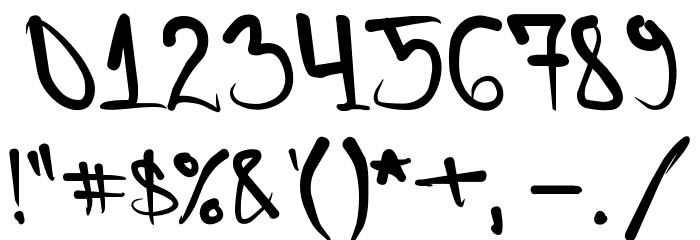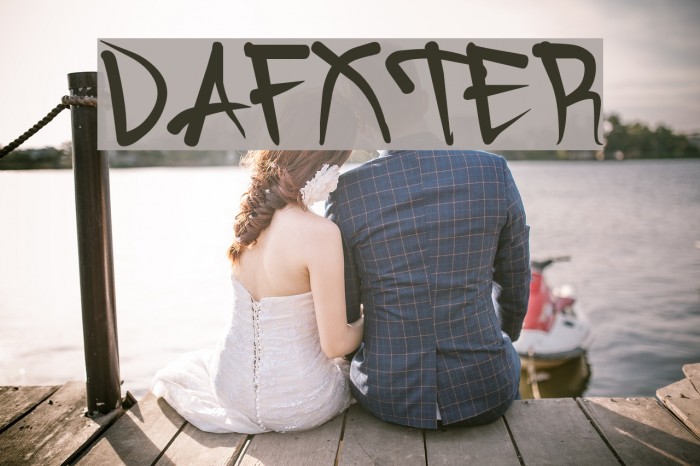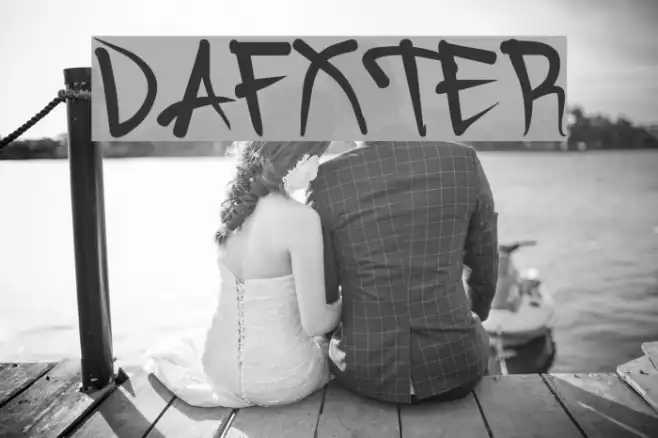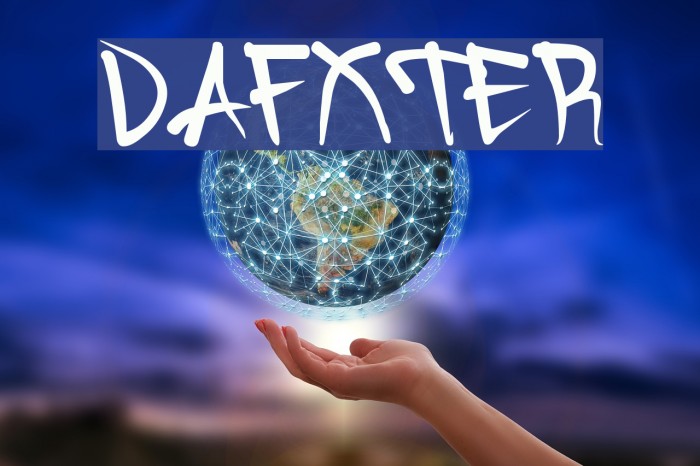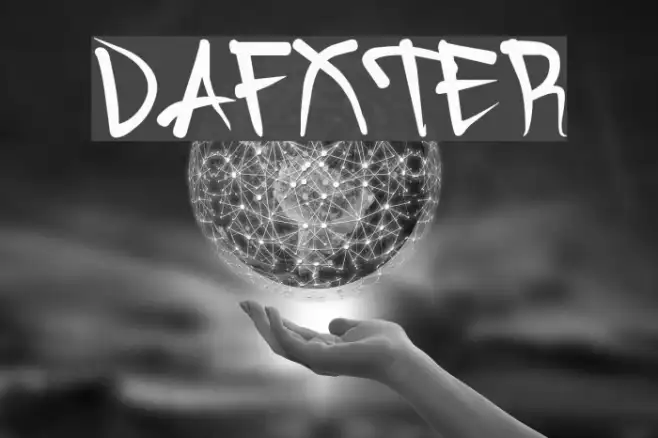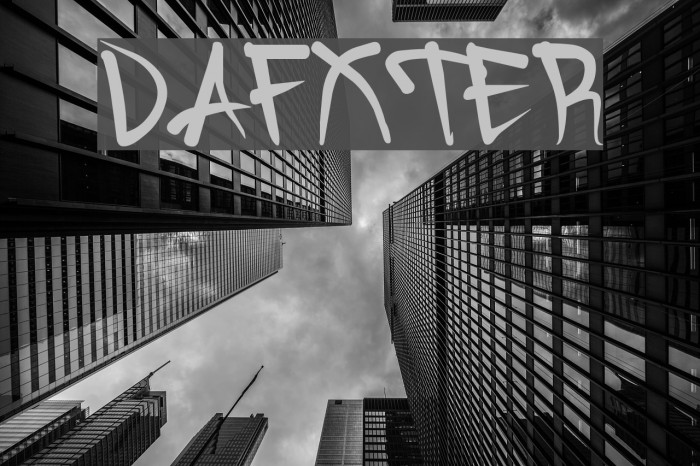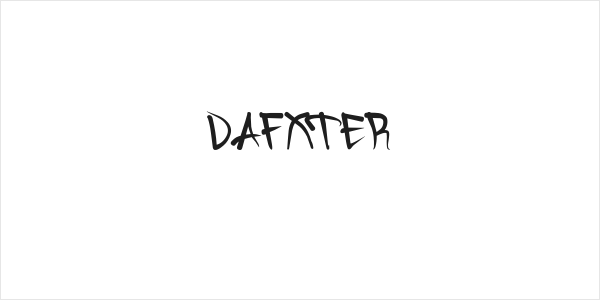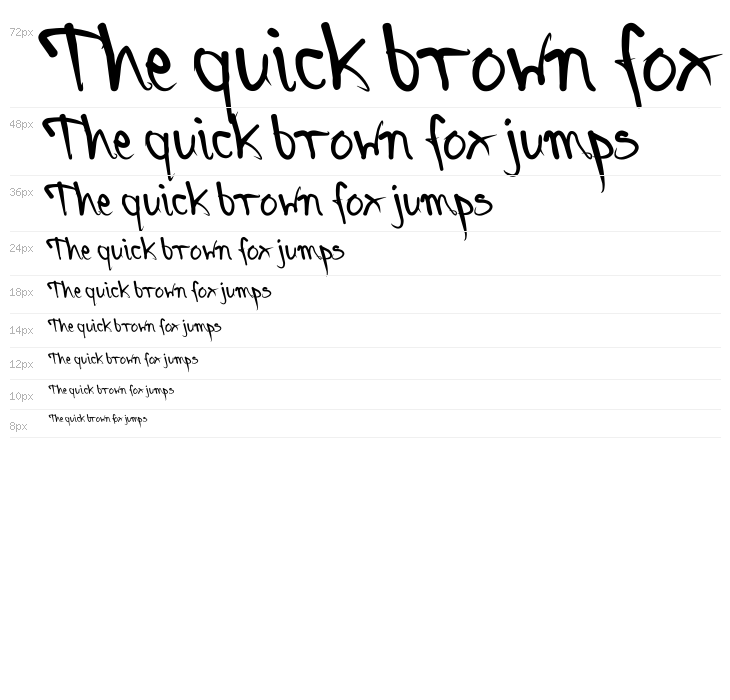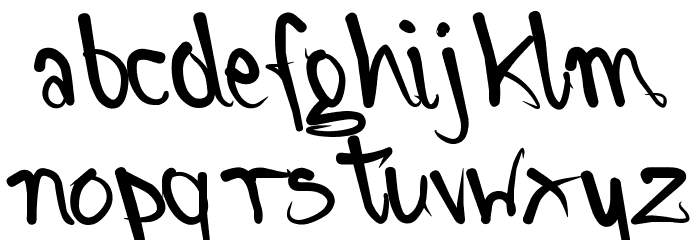
DAFXTER Font
DAFXTER Description
This font features a playful and dynamic handwritten style, characterized by its bold and expressive strokes. The letters have a casual, yet artistic flair, with varying line thickness that adds a sense of movement and energy. The uppercase letters are bold and prominent, while the lowercase letters maintain a consistent flow, enhancing readability. Numbers and special characters are designed with the same lively spirit, making them stand out. The overall appearance is both informal and stylish, suitable for creative and modern applications.
| Proposed Projects | Ideal for creative projects such as greeting cards, posters, branding, and social media graphics where a lively and informal touch is desired. |